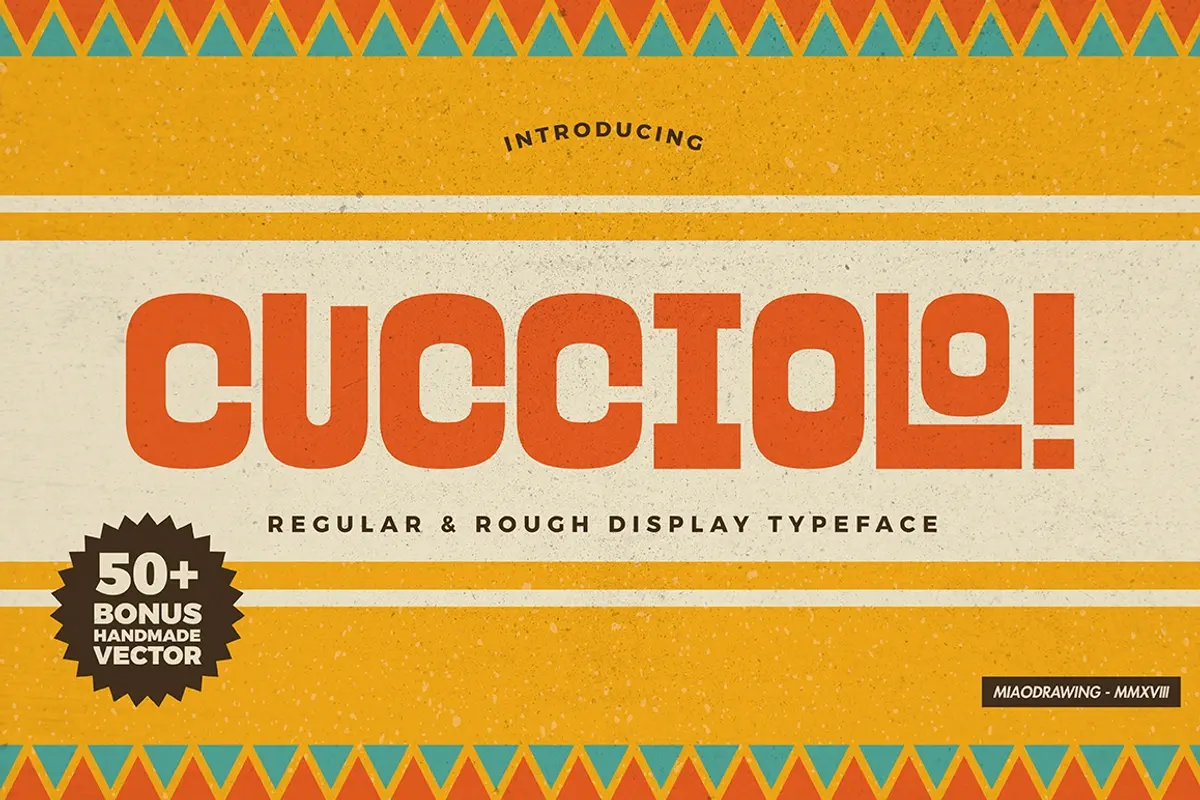
Cucciolo Typeface + Extras Free Download
The Cucciolo Typeface + Extras Free Download is a playful and charming font bundle that includes a beautifully designed typeface along with extra decorative elements. Featuring unique letterforms and an approachable style, Cucciolo is perfect for creating fun logos, branding, invitations, social media graphics, and more. Whether you're designing for a children’s brand, a playful event, or a creative project, Cucciolo adds a lively and whimsical touch to your work.
Cucciolo Typeface + Extras Free Download is ideal for designers looking to add a fun, lighthearted style to their work. Perfect for branding, creative designs, and personal projects, this font and its extras will bring a cheerful and unique vibe to your designs. Download it today and infuse your creative work with the delightful style of Cucciolo!